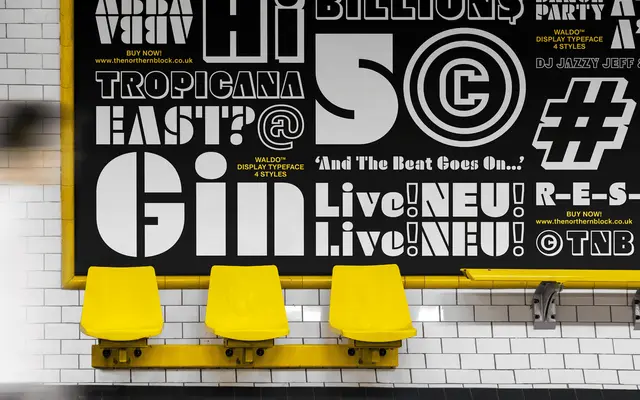
A heavyweight stencil display face drawn from a 1973 Planet of the Apes film poster, offered in four styles including Stencil, Outline and Shadow.
Rectangular slots cut through dense, narrow forms give Waldo its stencil character, with the design tracing back to the poster artwork for The Battle For The Planet of the Apes (1973). The family ships in four styles — Black, Stencil, Outline and Shadow — across a single weight, with over 400 characters and OpenType support for fractions, tabular figures and a handful of alternates. Western, Southern and Central European Latin coverage makes it workable across most European markets.
A heavyweight stencil display face with rectangular slot cuts, explicitly described as stencil-focused and display-oriented, designed for posters, film titles and apparel rather than text use.